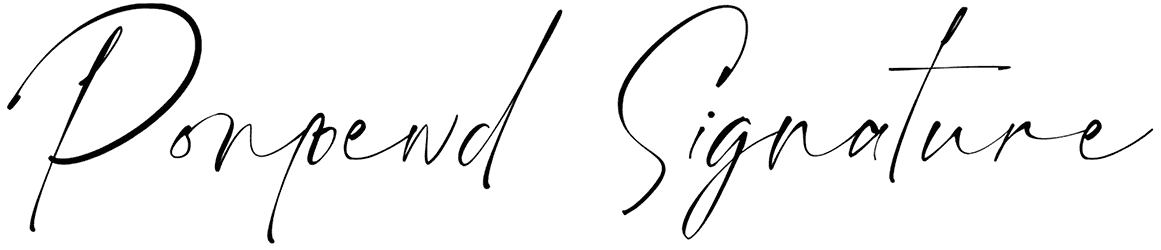
Ponpewd Signature Font
If you want to make a good impression on your readers, use the handwritten font Ponpewd Signature. Using this delicate, illegible font in your digital work may help you feel more carefree and creative.
Its versatility allows it to be used in a wide range of applications, from flyer designs to writing and signature motifs. You should definitely get this script font if you’re looking for a challenge. It’s free to download from the RB’s vast font archive.